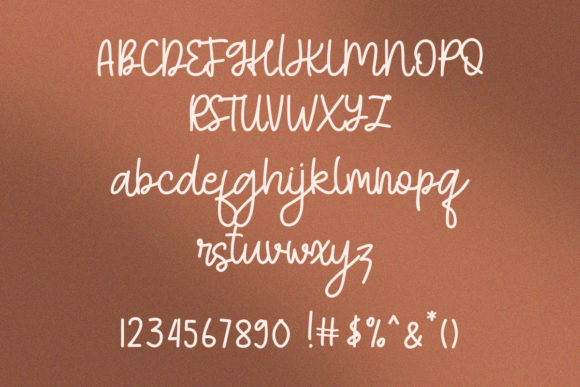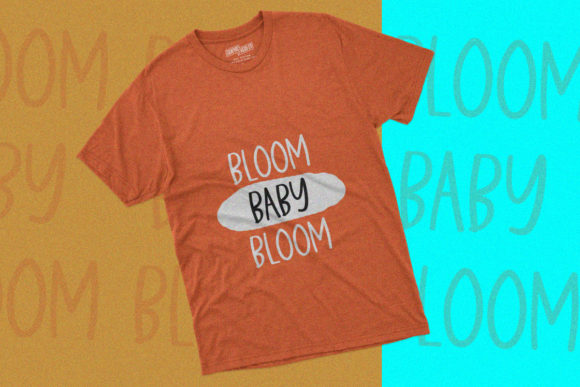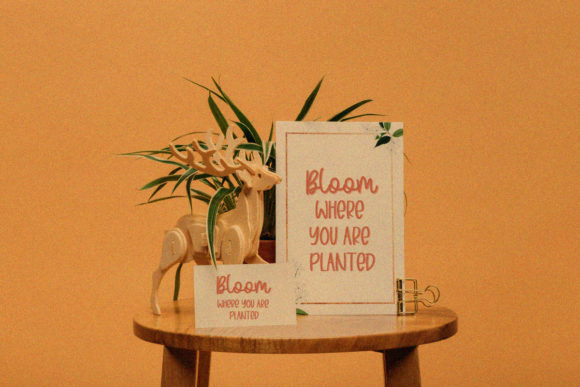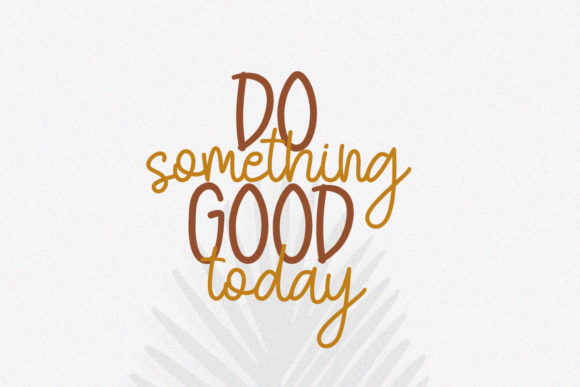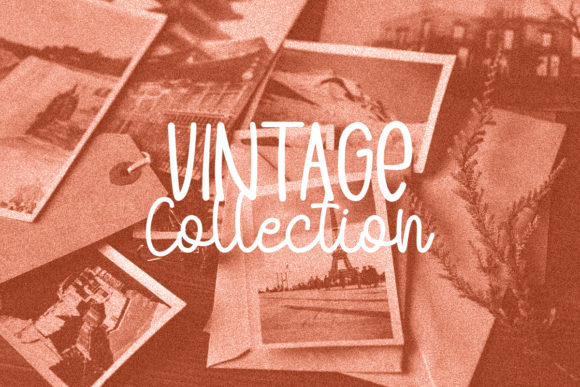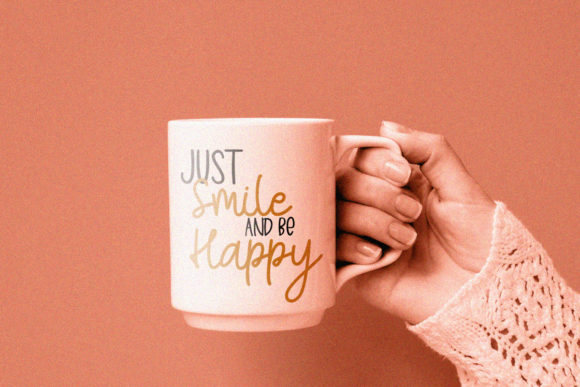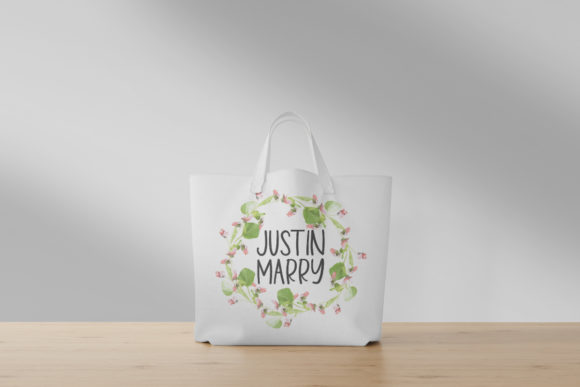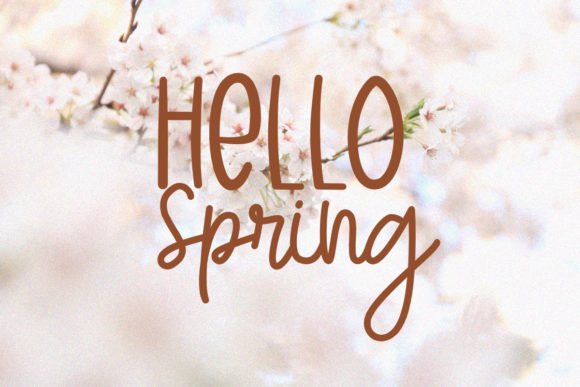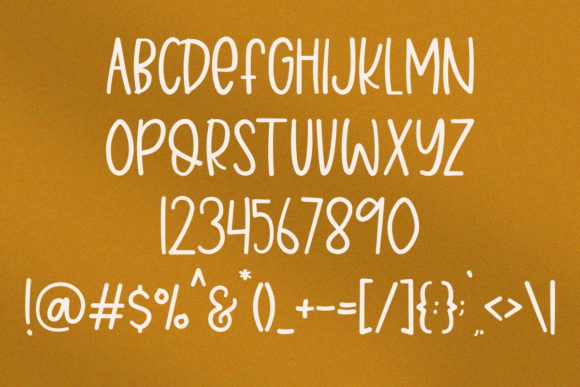
Let the Sunshine Font
About Let the Sunshine Font
Let The Sunshine duo is a handwritten en script match made in heaven. Combining these two fonts on your next design will give an amazing and enchanting feel.